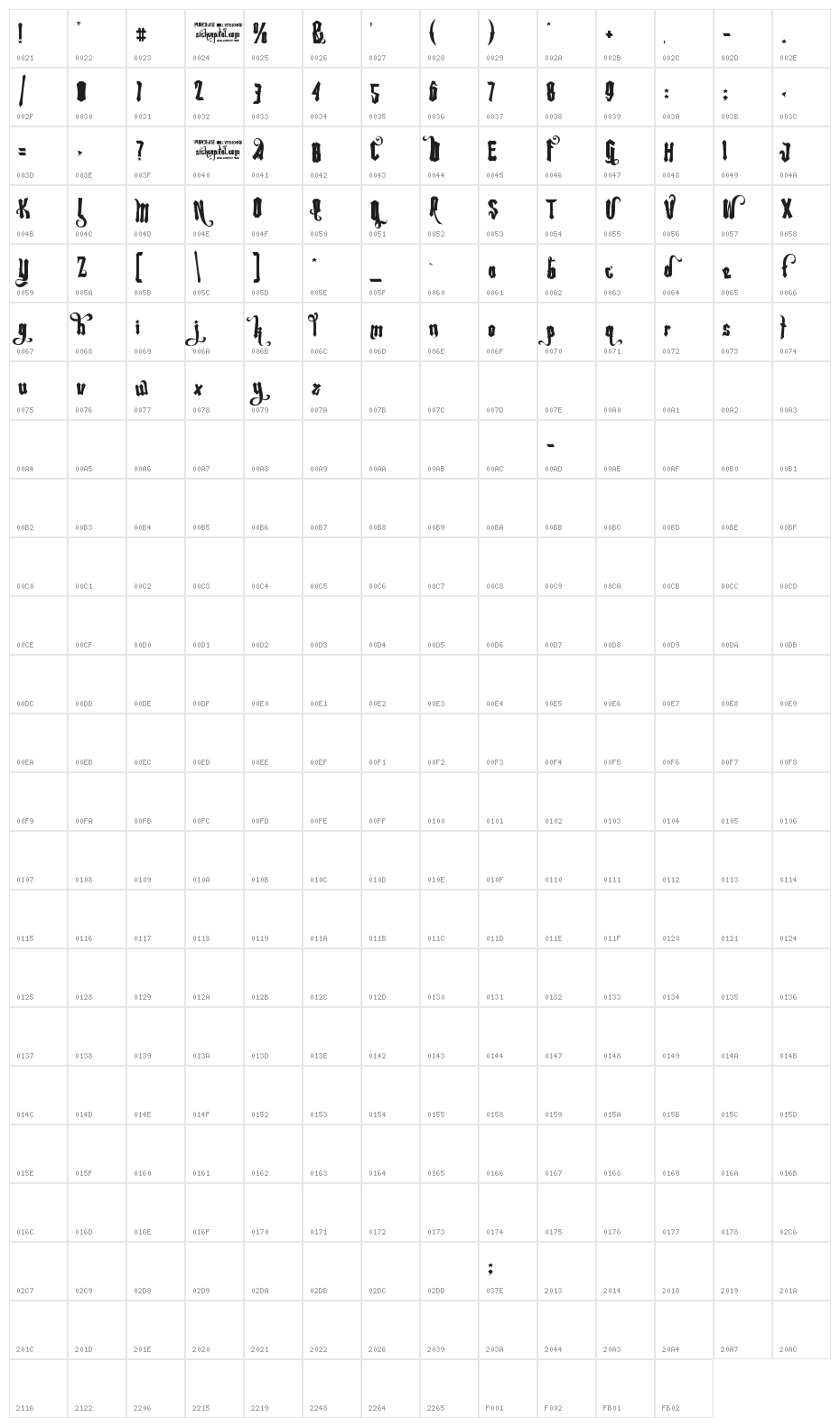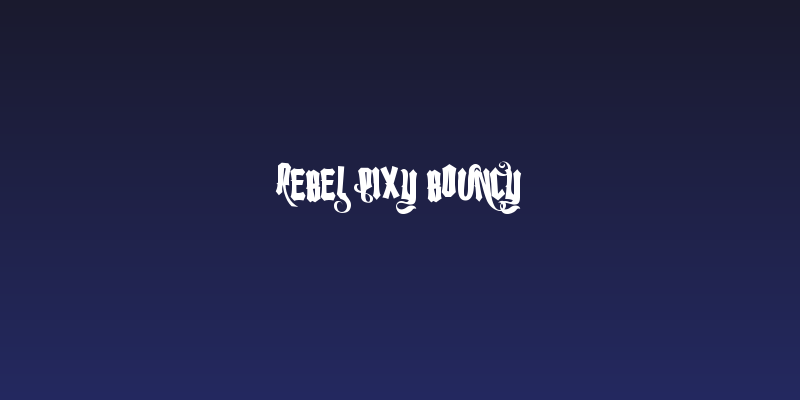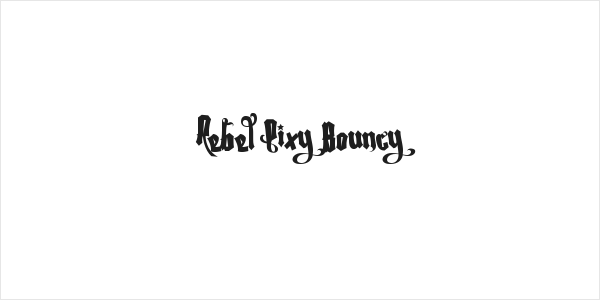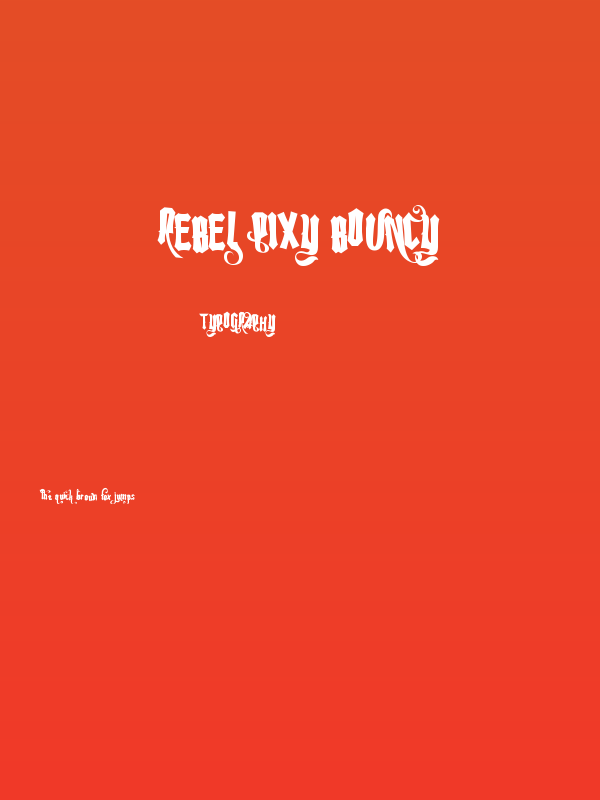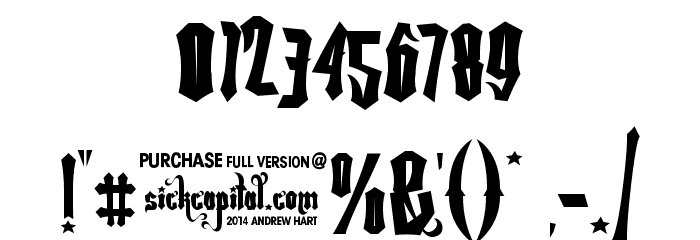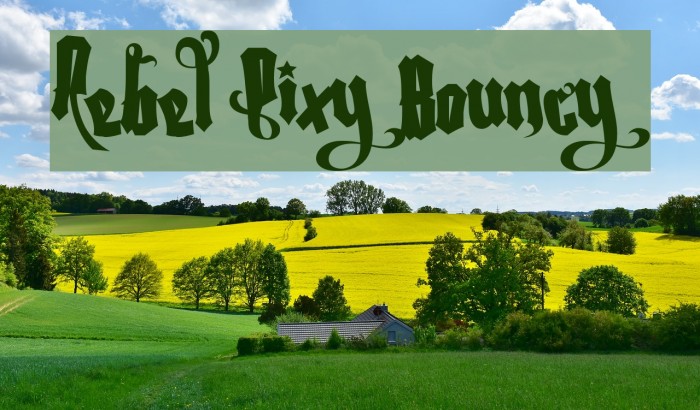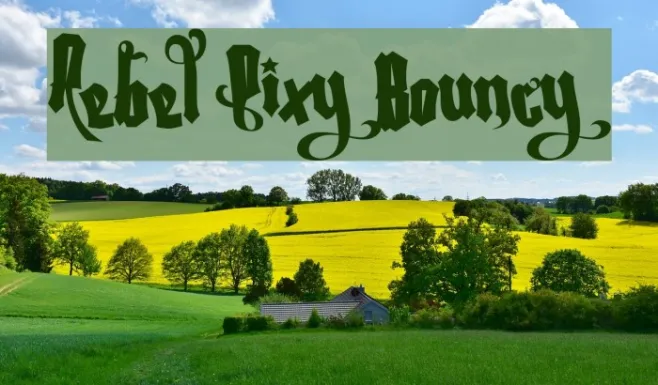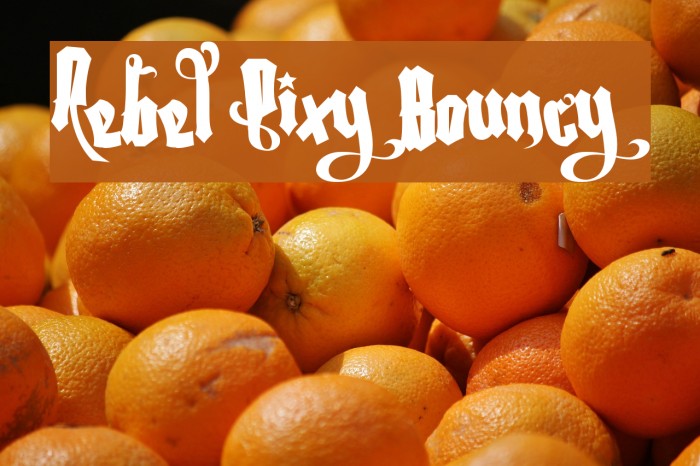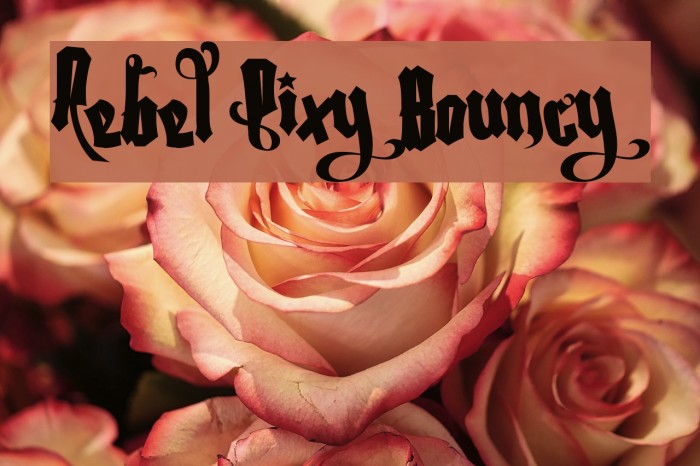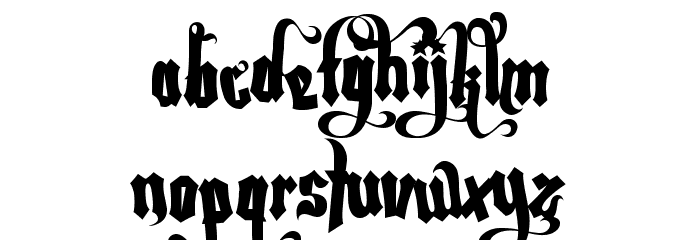
Rebel Pixy Bouncy Font
Rebel Pixy Bouncy Description
This font features a bold and decorative style with intricate details and flourishes. The uppercase letters are characterized by sharp, angular edges and elaborate swirls, giving it a gothic and rebellious appearance. The lowercase letters maintain the same decorative flair, with some characters featuring unique loops and curls. The numbers are consistent with the overall style, presenting a bold and striking look. Special characters are also designed with the same attention to detail, making them stand out. This font is perfect for projects that require a dramatic and eye-catching typeface.
| Overall Style | Gothic, Decorative |
| Use Case | Logos, Posters, Headlines |
| Proposed Projects | Ideal for tattoo designs, band logos, posters, and any project needing a dramatic flair. |